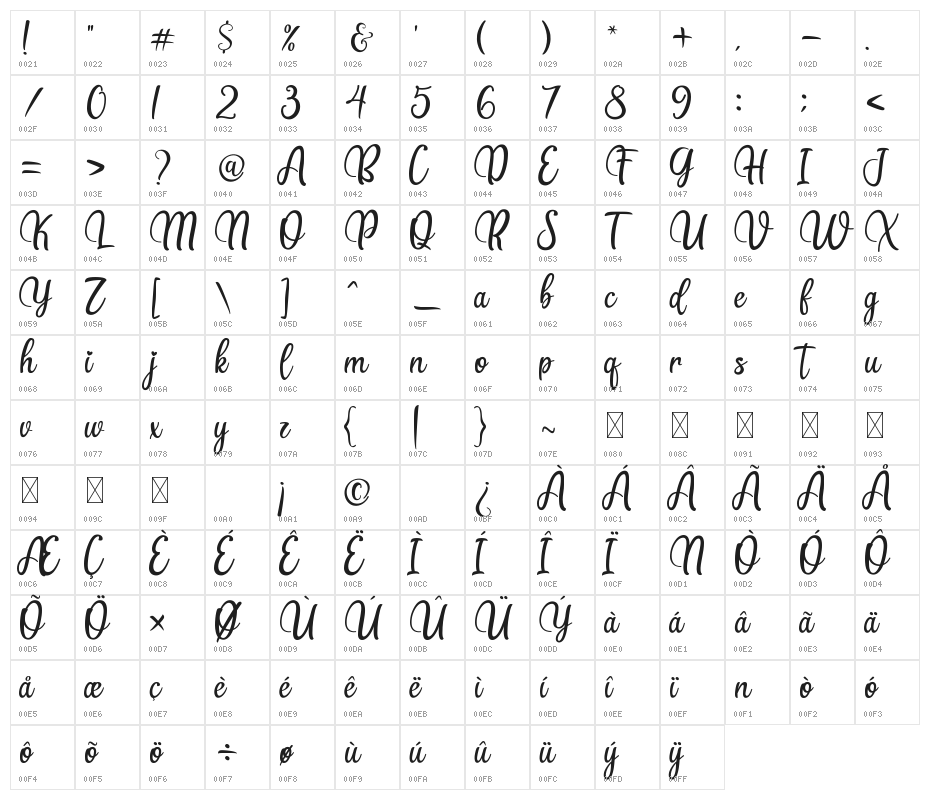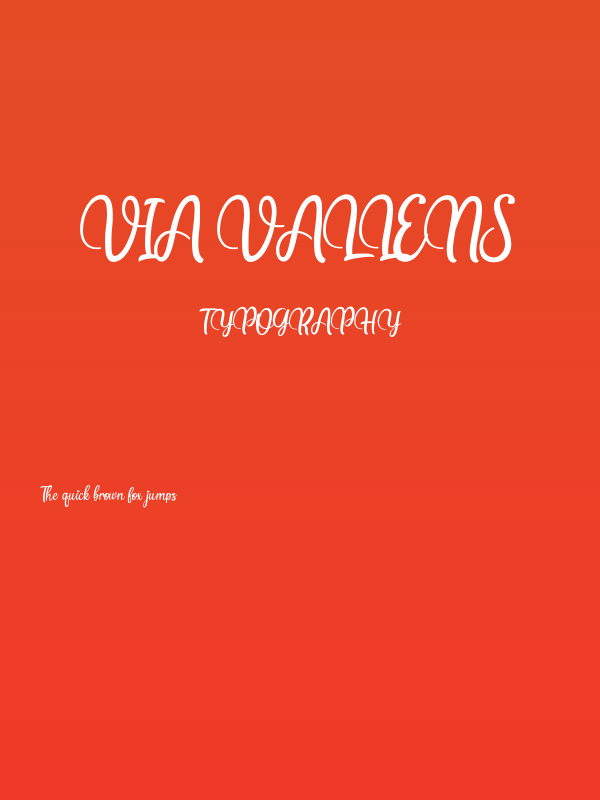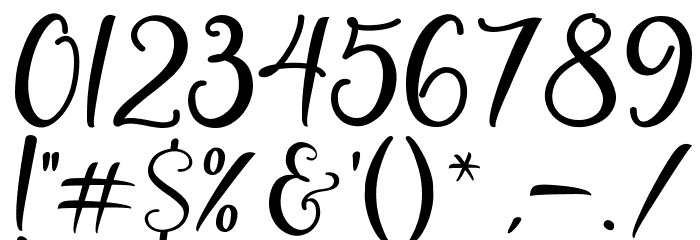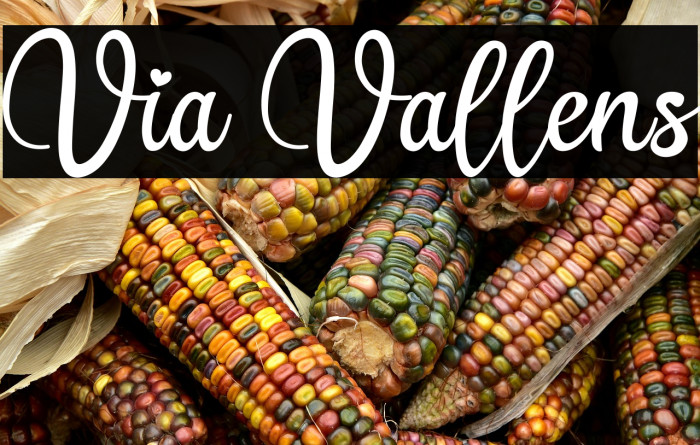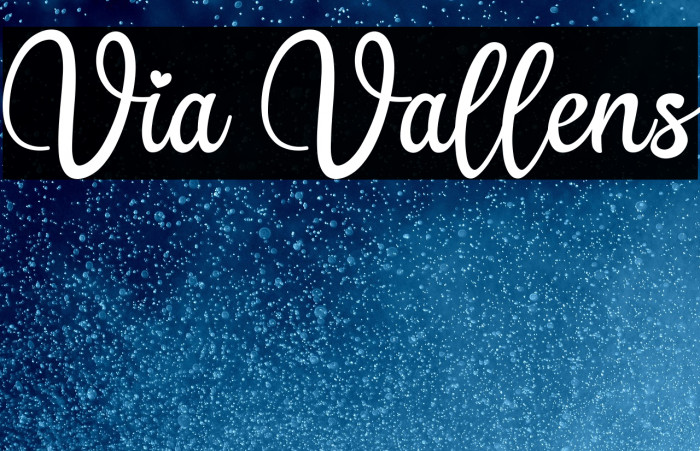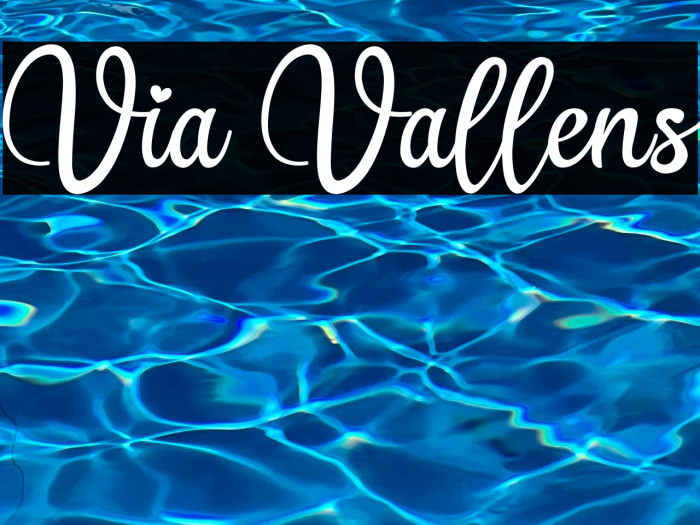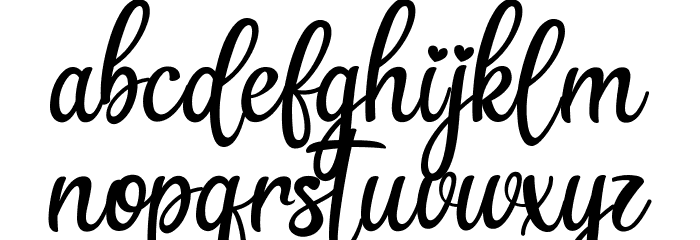
Via Vallens Font
Via Vallens Description
This font features a lively and expressive script style, characterized by its fluid and connected letterforms. The uppercase letters exhibit a graceful, flowing quality, while the lowercase letters maintain a consistent rhythm and balance. The numerals are elegantly styled, complementing the overall aesthetic. Special characters are thoughtfully integrated, enhancing the font's versatility. The strokes are smooth and exhibit a medium contrast, adding to the font's dynamic appearance. This font is well-suited for creative projects that require a touch of elegance and personality.